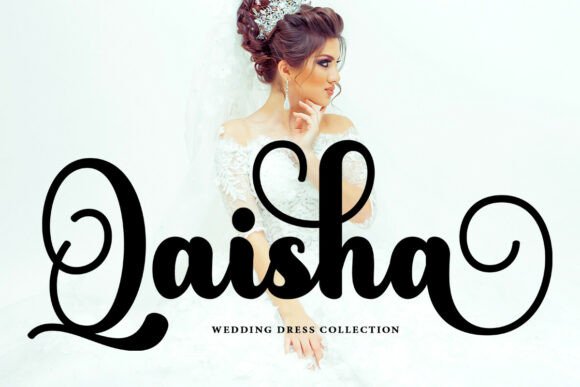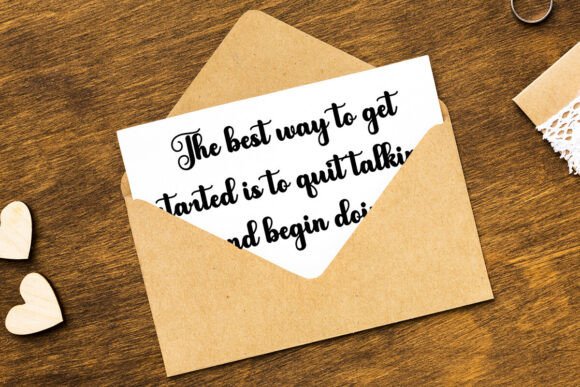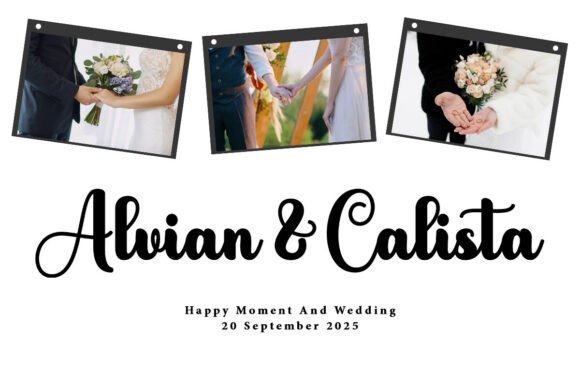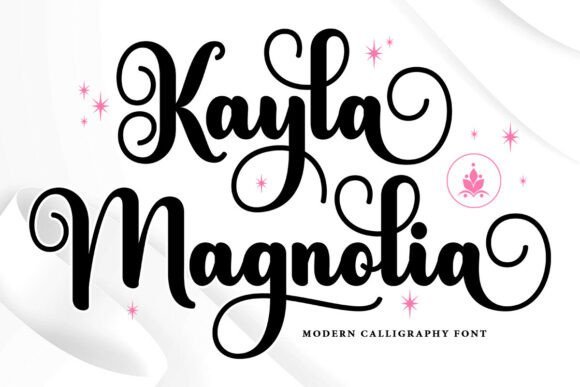
Introduction to Kayla Magnolia Font
Kayla Magnolia is a captivating modern calligraphy font with an elegant and sweet touch.
Each curve of the letters is designed with graceful spiral details, giving a romantic yet luxurious impression This font is perfect for wedding invitations, branding, logos, product packaging, quotes, and social media designs that want to look charming and classy.
Key Features of Kayla Magnolia Font
Why Choose Kayla Magnolia Font?
Kayla Magnolia Font offers exceptional quality and versatility, making it a valuable addition to your design toolkit. Whether you’re creating for personal projects or commercial use, Kayla Magnolia Font delivers professional results.